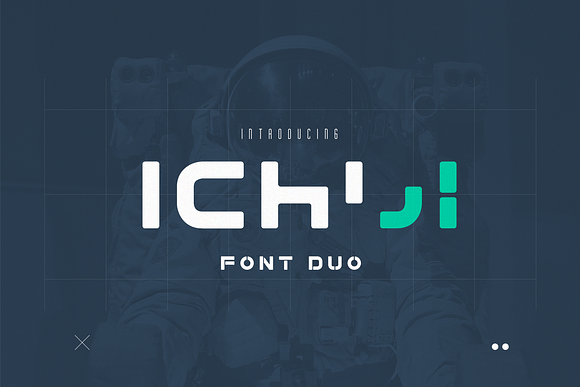
Ichiji Font
Ichiji Font is perfect for Japanese-inspired branding, Asian restaurant design, martial arts studios, zen meditation centers, tea ceremony materials, contemporary Asian fusion, cultural projects, minimalist logos, eastern philosophy communications, and serene visual communications. This distinctive typeface excels in both digital and print applications requiring eastern elegance.
Ichiji Font is exciting because it captures the harmonious essence of Japanese aesthetics with refined letterforms that evoke balance and tranquility while maintaining excellent readability. Its zen character creates memorable brand experiences that resonate with audiences seeking mindfulness, cultural appreciation, and eastern wisdom.
The Ichiji Font family includes regular, bold, light, italic, condensed, extended, and zen variants, providing designers with comprehensive typographic options for various design scenarios and eastern communication requirements.
Ichiji Font embodies the profound philosophy of Japanese design principles, delivering exceptional typography that reflects the harmony and mindfulness associated with eastern aesthetics and cultural wisdom. This contemplative typeface draws inspiration from Japanese calligraphy, zen gardens, and traditional craftsmanship to create letterforms that communicate balance, serenity, and cultural respect. The font's eastern character makes it particularly valuable for wellness centers, meditation studios, Japanese restaurants, and cultural organizations that require typography capable of conveying eastern wisdom, mindful tranquility, and authentic cultural appreciation.
The balanced construction of Ichiji Font demonstrates masterful understanding of eastern design principles, with harmonious proportions and mindful details that create peaceful visual compositions reminiscent of Japanese aesthetics and zen philosophy. This contemplative approach ensures excellent performance across diverse applications, from wellness branding to cultural marketing where eastern appeal enhances authenticity and spiritual credibility. The font's serene qualities make it especially effective for brands in mindfulness practices, cultural education, wellness services, and spiritual organizations that celebrate eastern wisdom and peaceful living.
Creative professionals working with Ichiji Font Free Download will appreciate the typeface's versatility across eastern and contemporary design challenges. Its zen styling bridges traditional Japanese aesthetics with modern minimalist design, making it suitable for established cultural institutions and innovative wellness companies requiring distinctive, memorable typography with eastern appeal. The font's peaceful presence makes it particularly effective for meditation centers, tea houses, cultural museums, and wellness businesses that must communicate tranquility through respectful, culturally sensitive visual design.
Whether developing eastern-inspired brand identities, creating mindful communications, or designing cultural marketing materials, Ichiji Font provides the zen harmony needed for communications that inspire peace and convey cultural wisdom while maintaining respectful standards and achieving authentic connection with audiences who appreciate eastern philosophy and mindful living.